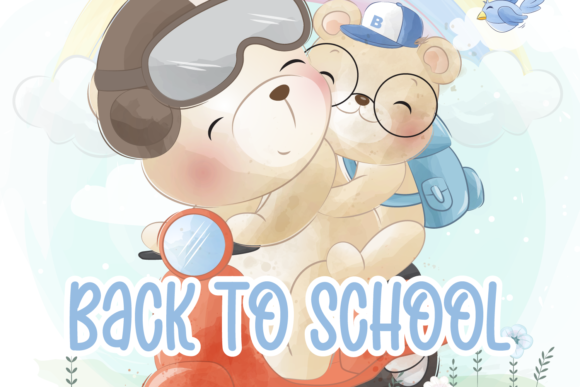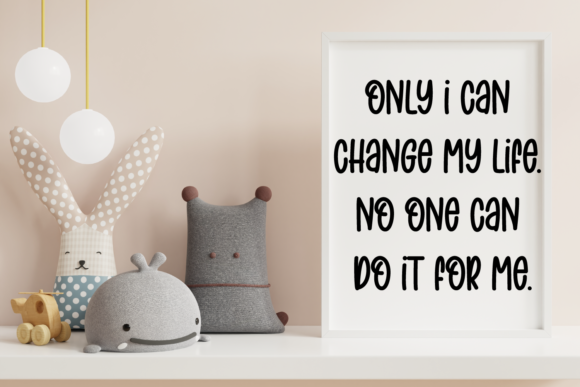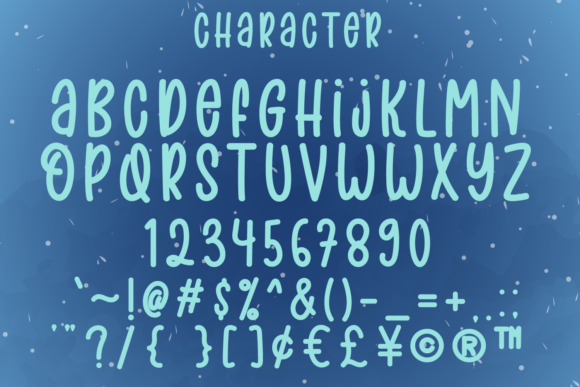
Introduction to Homeschool Summer Font
Homeschool Summer is a fun, paint brushed and playful display font.
Whether you use it for cartoon related designs, children games or just any creation that requires a lovely touch, this font will be an amazing choice .
Key Features of Homeschool Summer Font